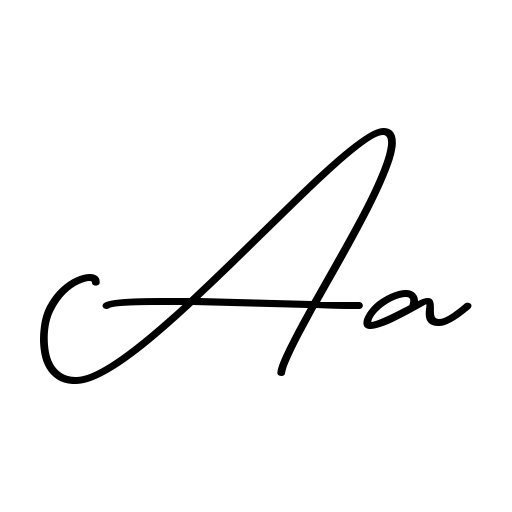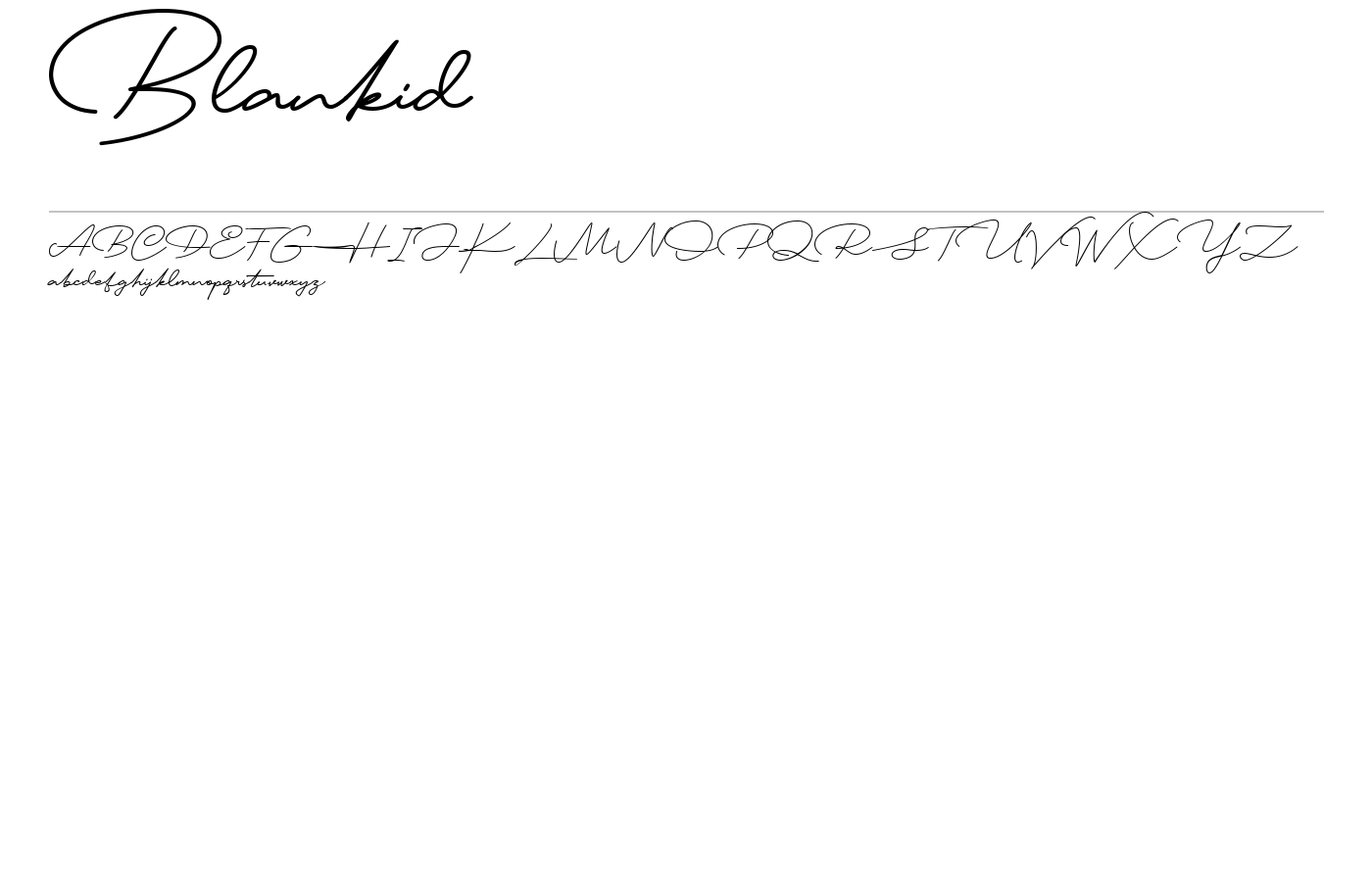
Blankid is an elegant, light-weight script font that mimics delicate, flowing handwriting with its slender, connected strokes and airy letterforms. Its refined and playful character works beautifully for personal branding, invitations, and stylish logo designs where a touch of sophistication and modern charm is desired. This font shines best in large displays or accent text, adding a graceful, handcrafted feel to creative projects.
Blankid Font
About Blankid Font